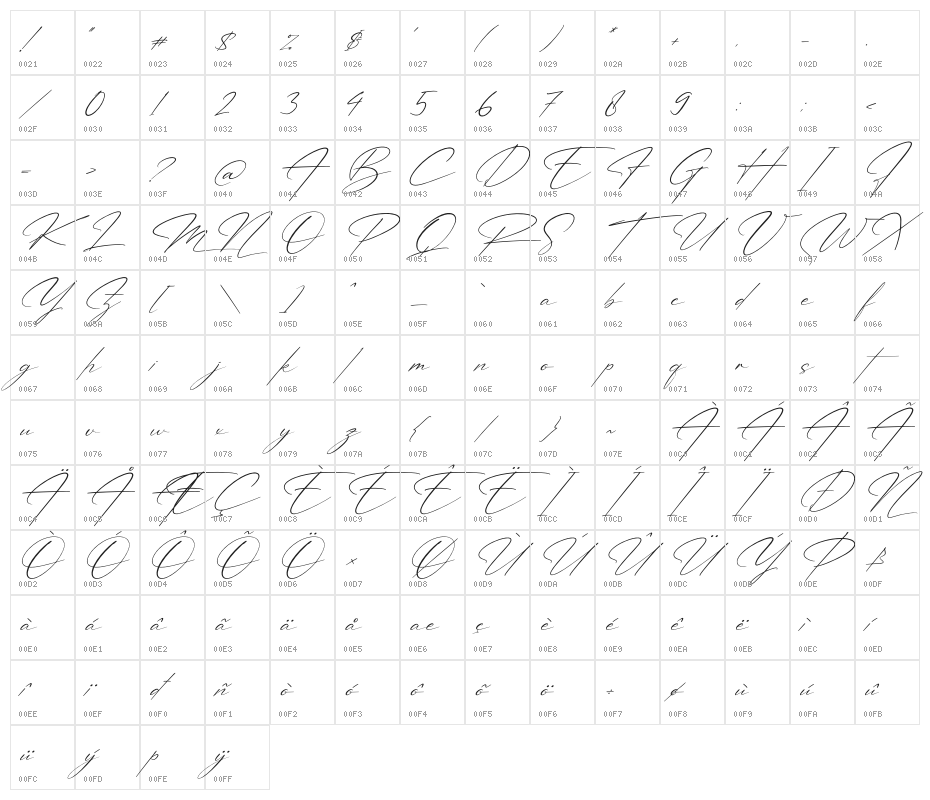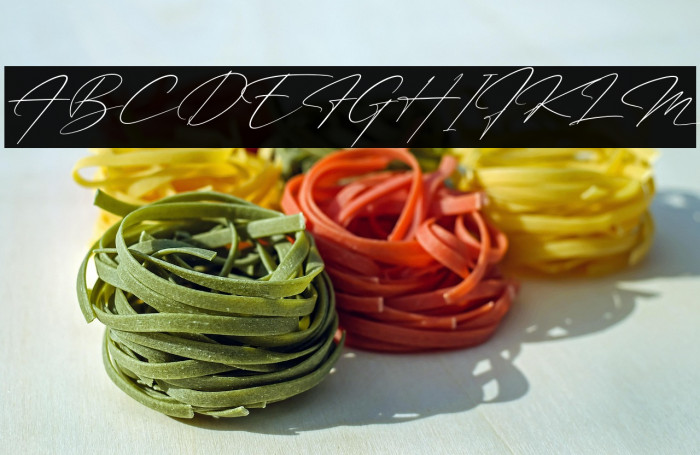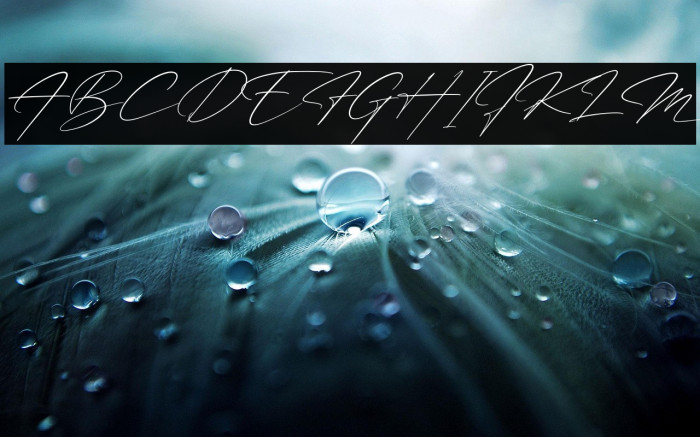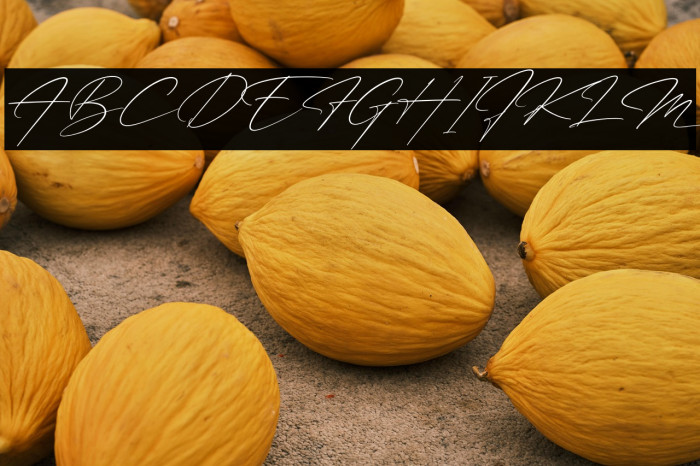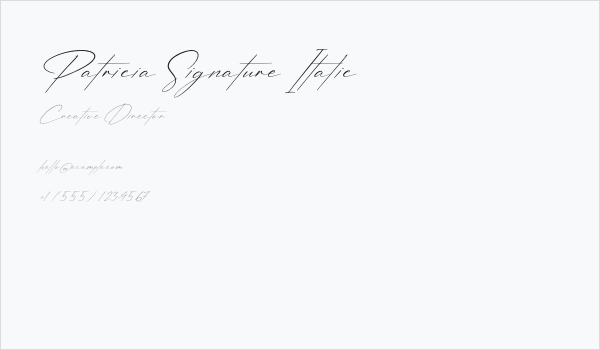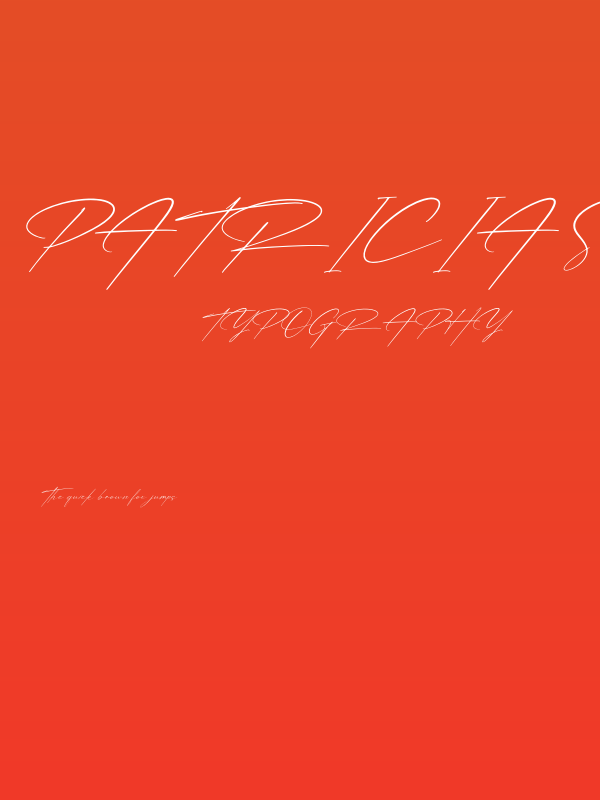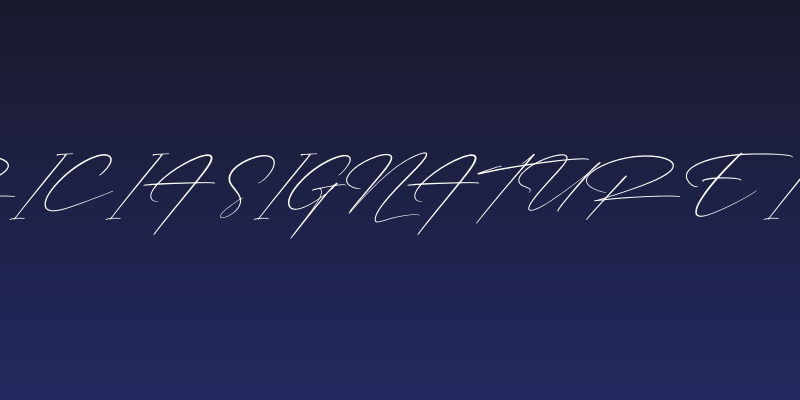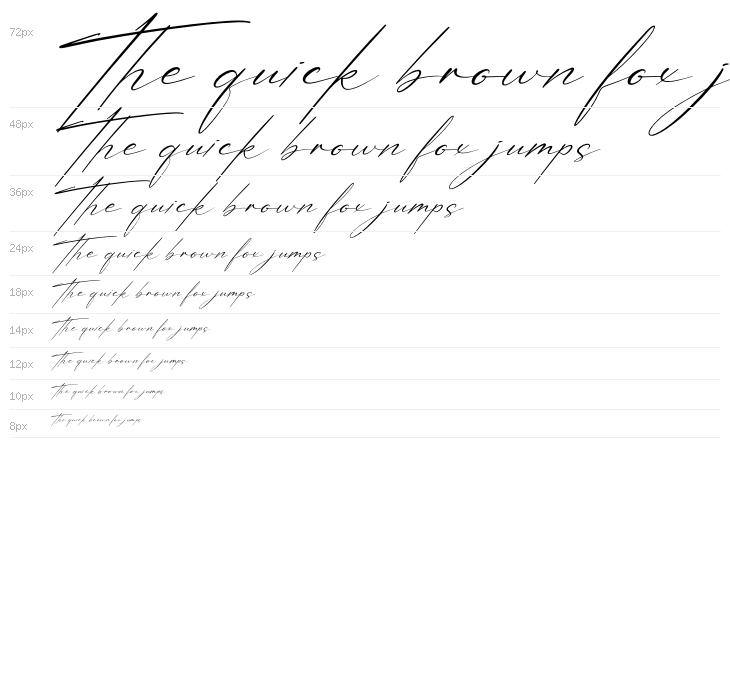
Patricia Signature Italic Font
Patricia Signature Italic Description
This font exudes a sophisticated and elegant style, characterized by its flowing, cursive script that mimics the fluidity of a handwritten signature. The letters are connected with smooth, sweeping strokes, giving it a continuous and harmonious appearance. The uppercase letters are particularly ornate, with exaggerated loops and flourishes that add a touch of drama and flair. The lowercase letters maintain a consistent slant, enhancing the overall sense of movement and grace. The numerals and special characters complement the alphabet with similar stylistic elements, ensuring a cohesive look across all text. This font is ideal for projects that require a personal, artistic touch, such as invitations, branding, and decorative signage.
| Overall Style | Elegant, Decorative |
| Proposed Projects | Ideal for wedding invitations, personal branding, artistic signage, and decorative projects. |